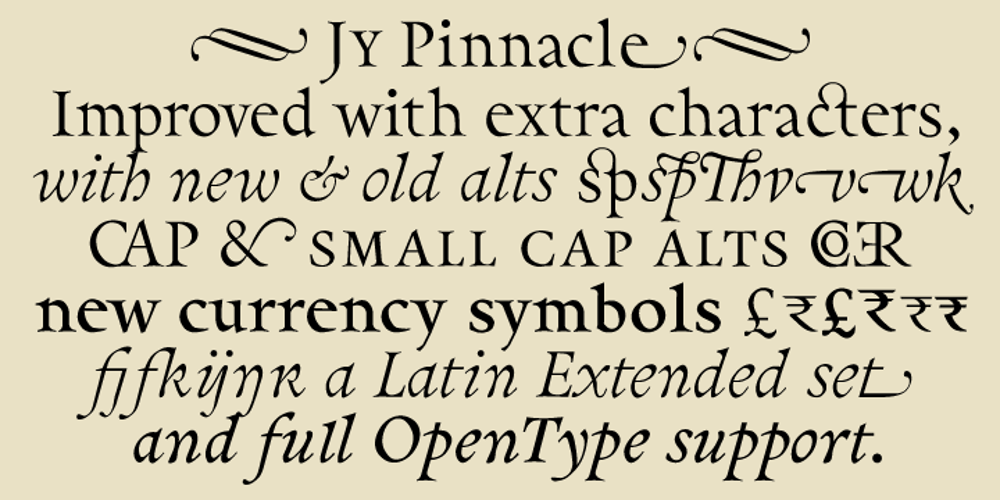
Pinnacle JY Pro Font Family was designed by Jack Yan and published by JY&A. Pinnacle JY Pro contains 4 styles and family package options. JY Pinnacle is a distinctive text family, with at least 3,100 kerning pairs (for text fonts) and collections of alternative characters for roman, italic and cap and small cap. Pinnacle has an awareness of tradition, but is individual and fresh. Its oblique axis for lowercase letters such as the o and e is meant to aid legibility.